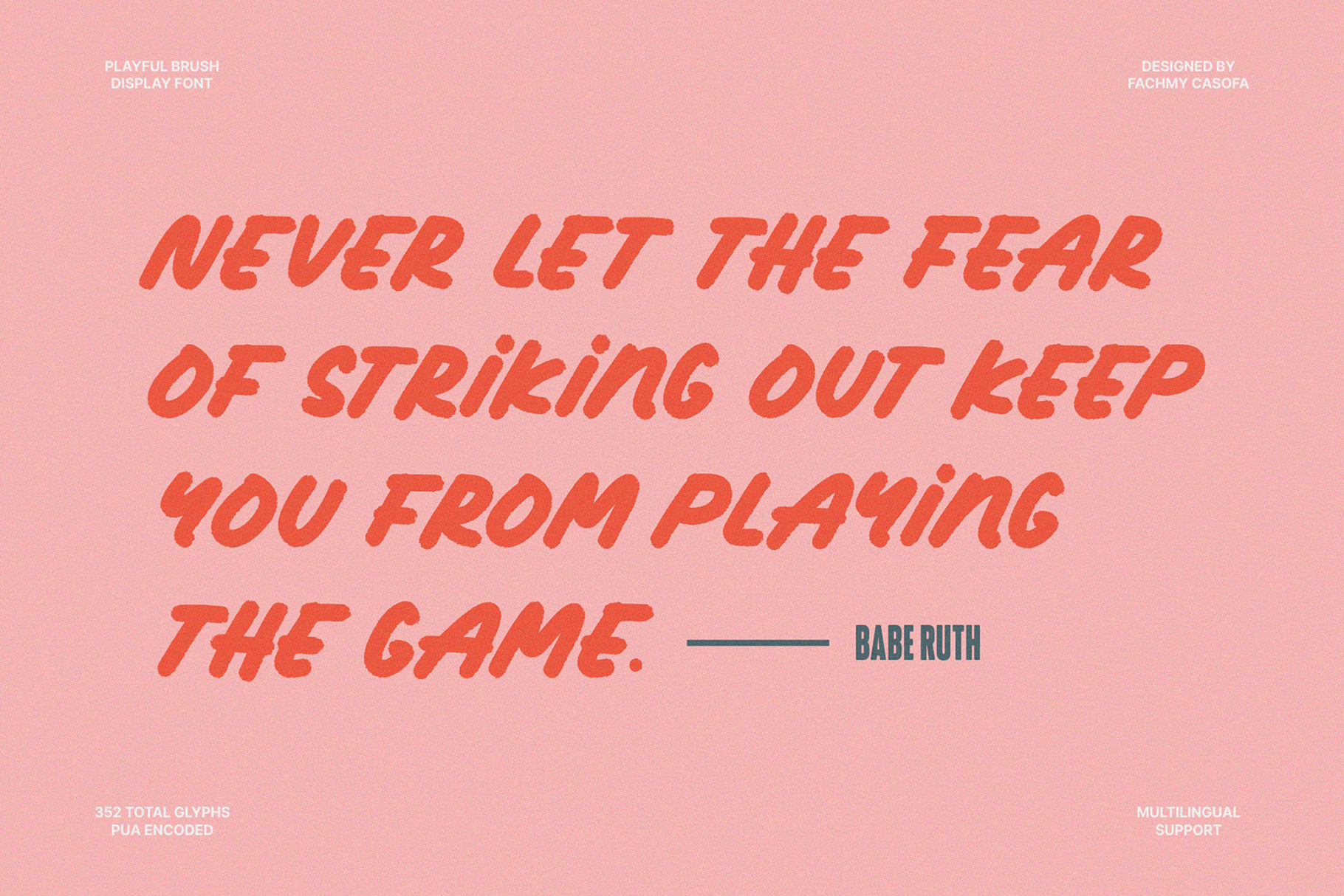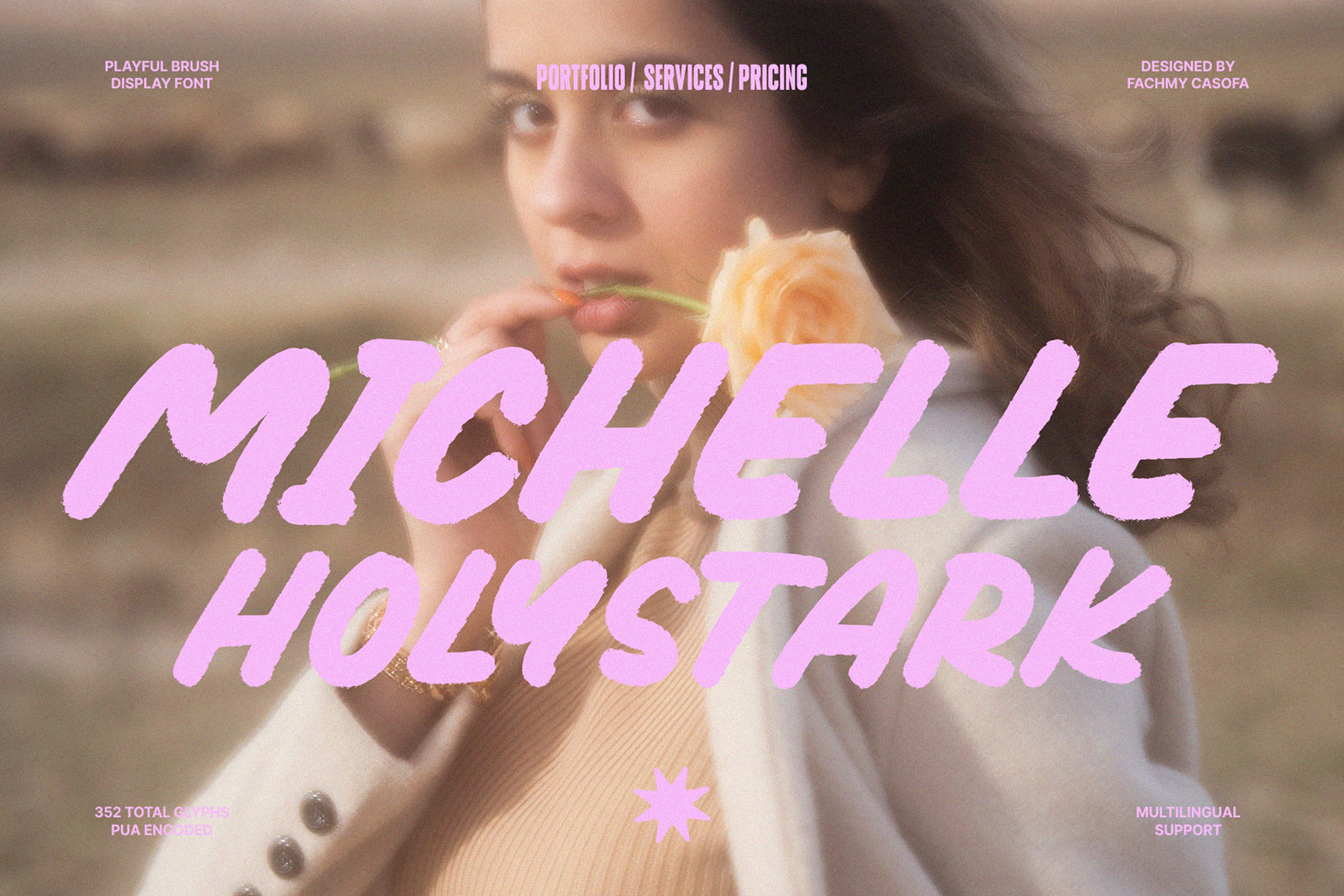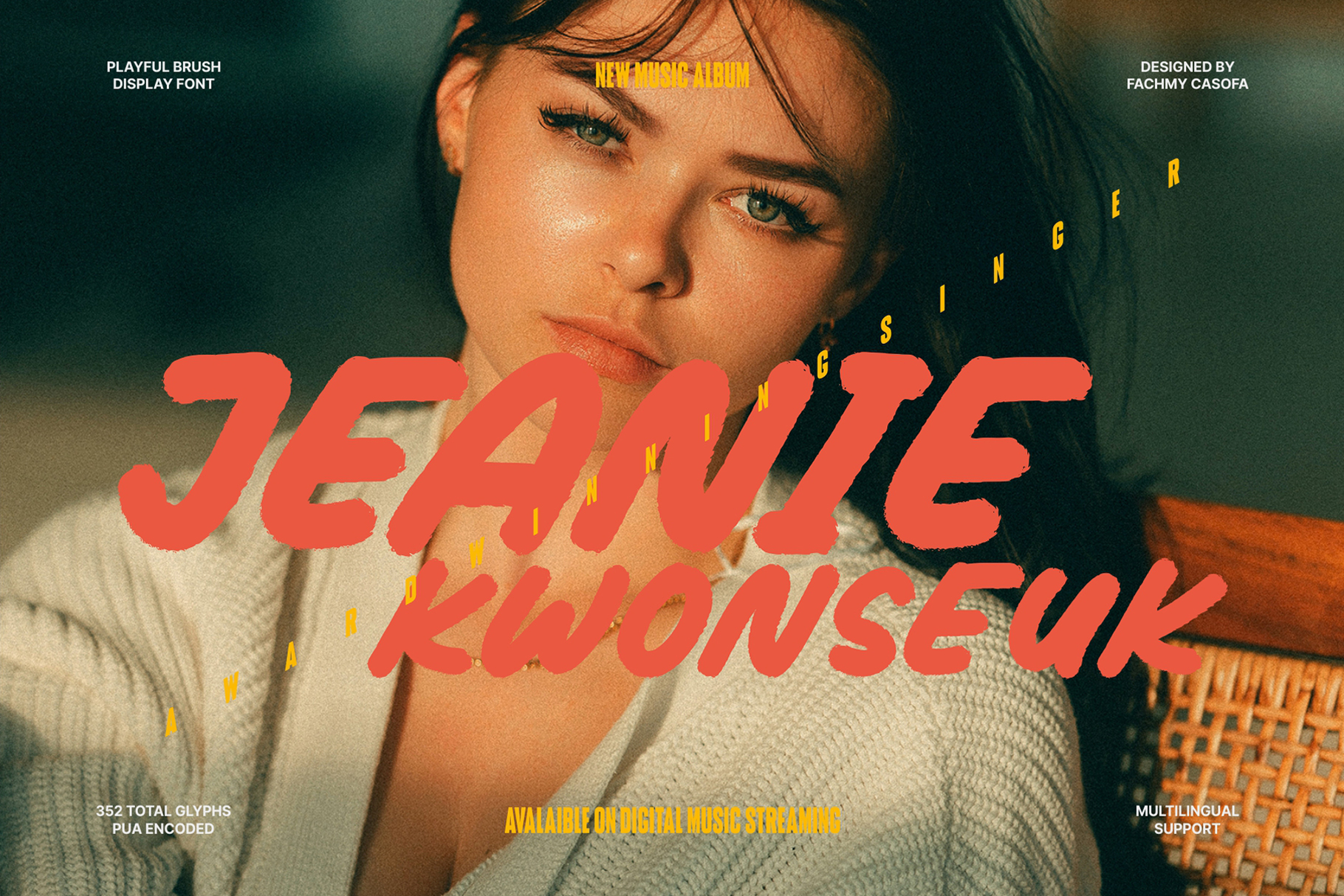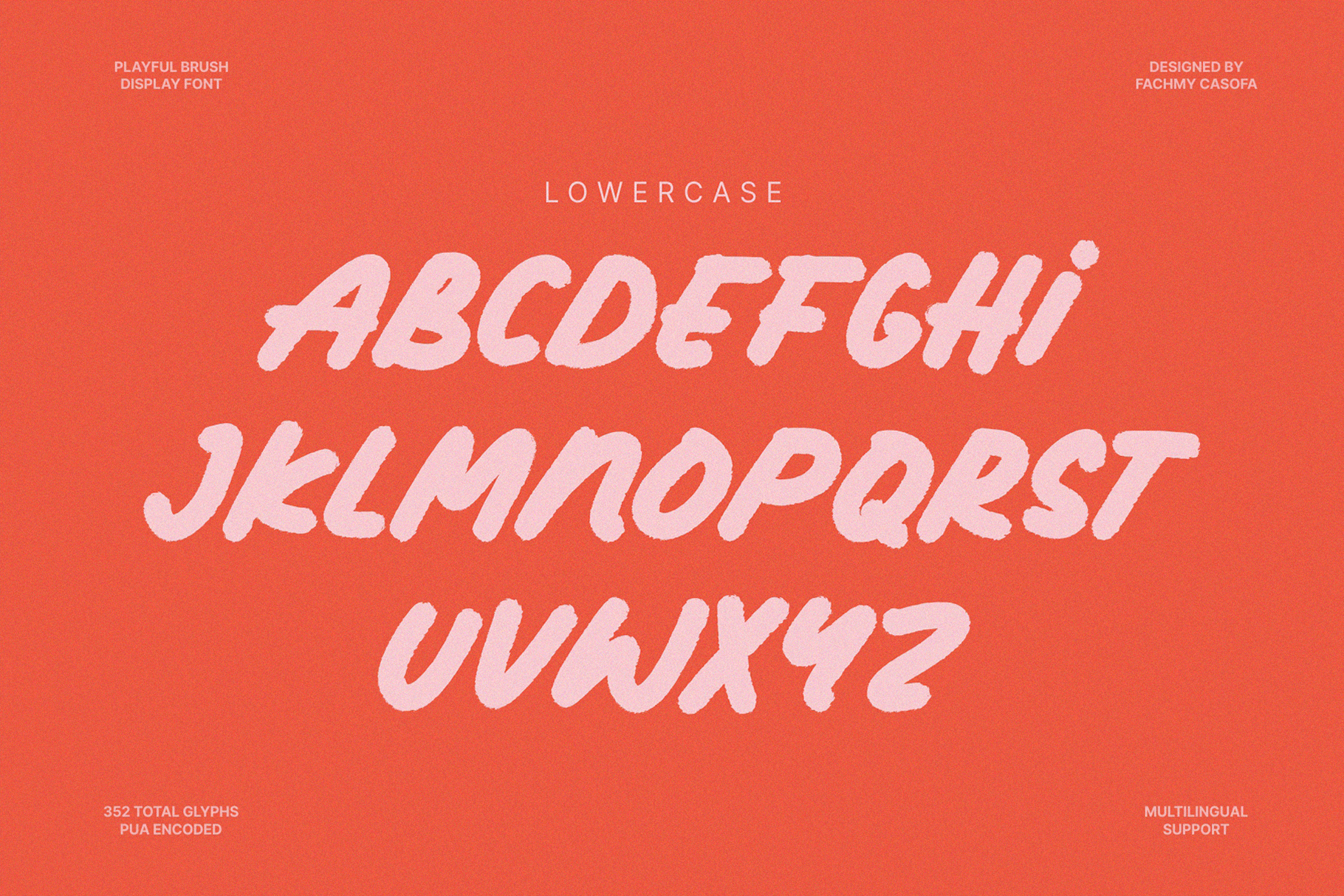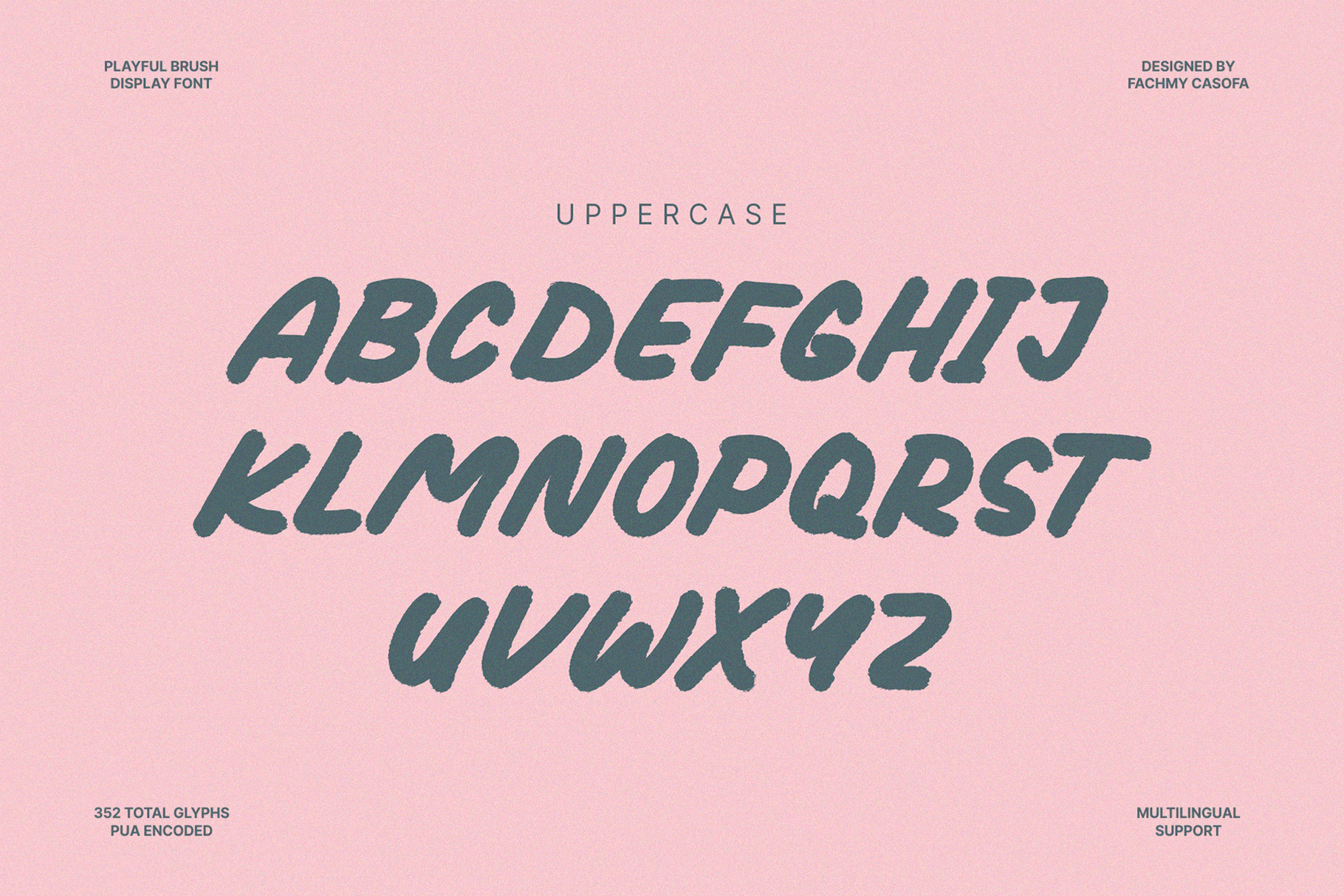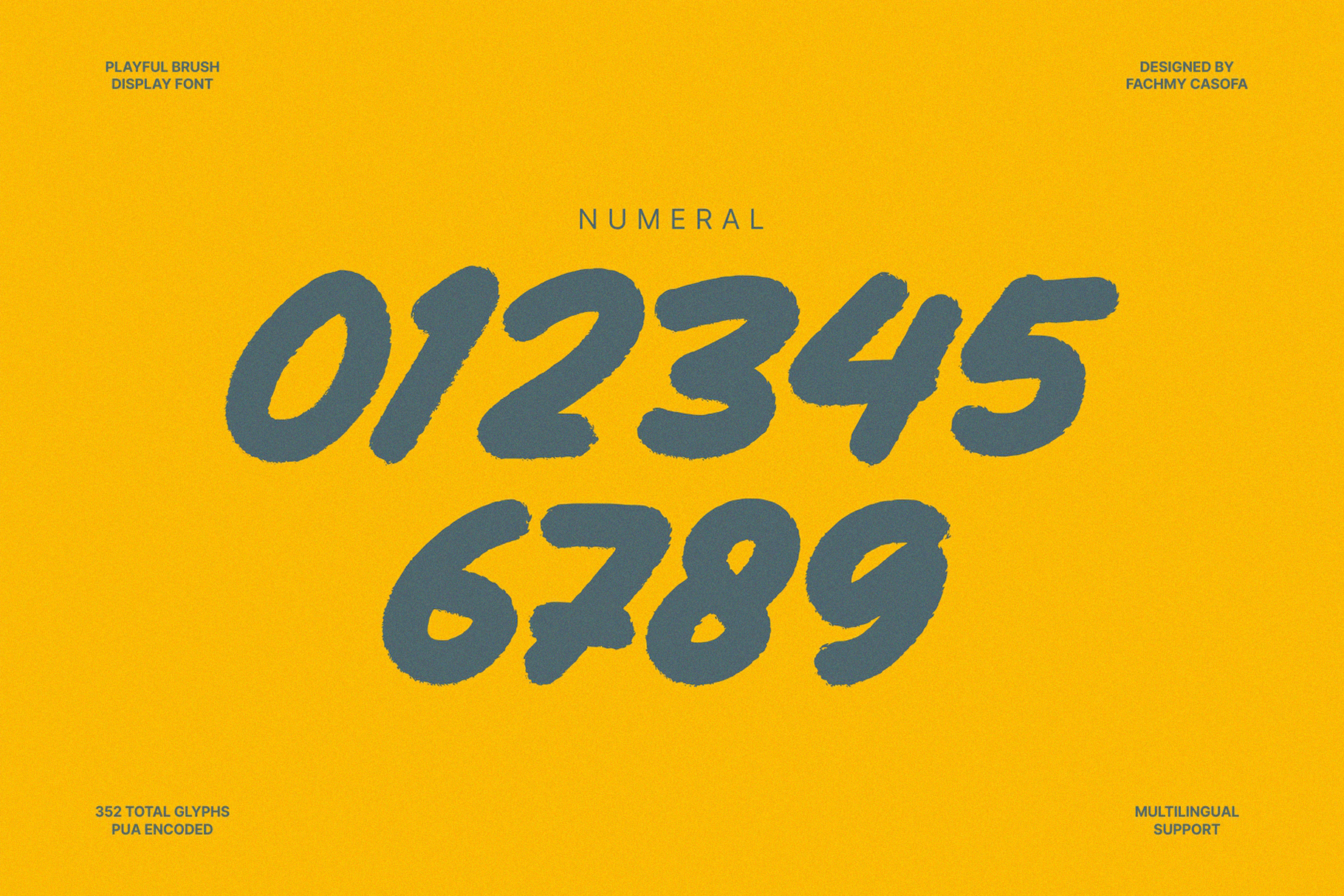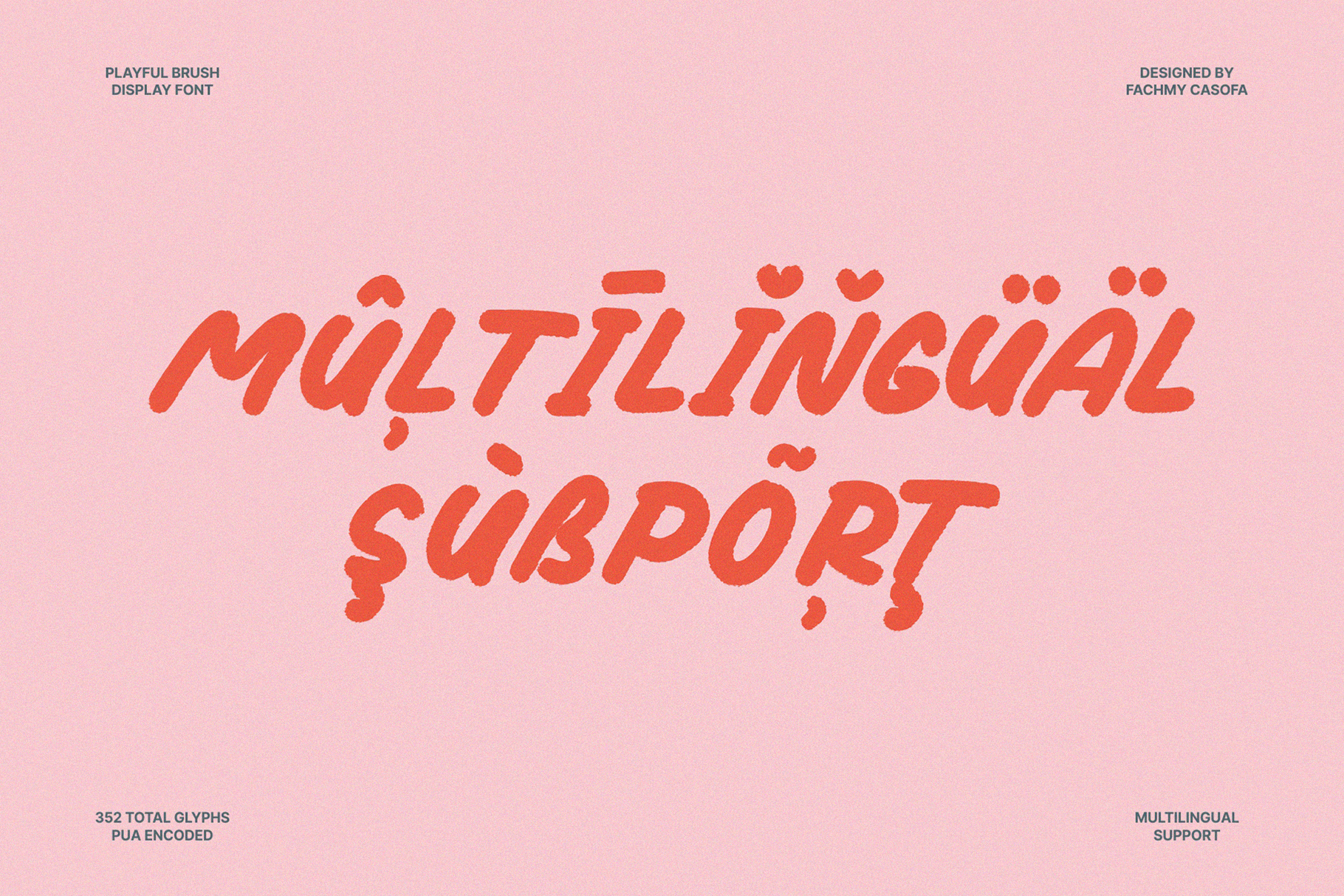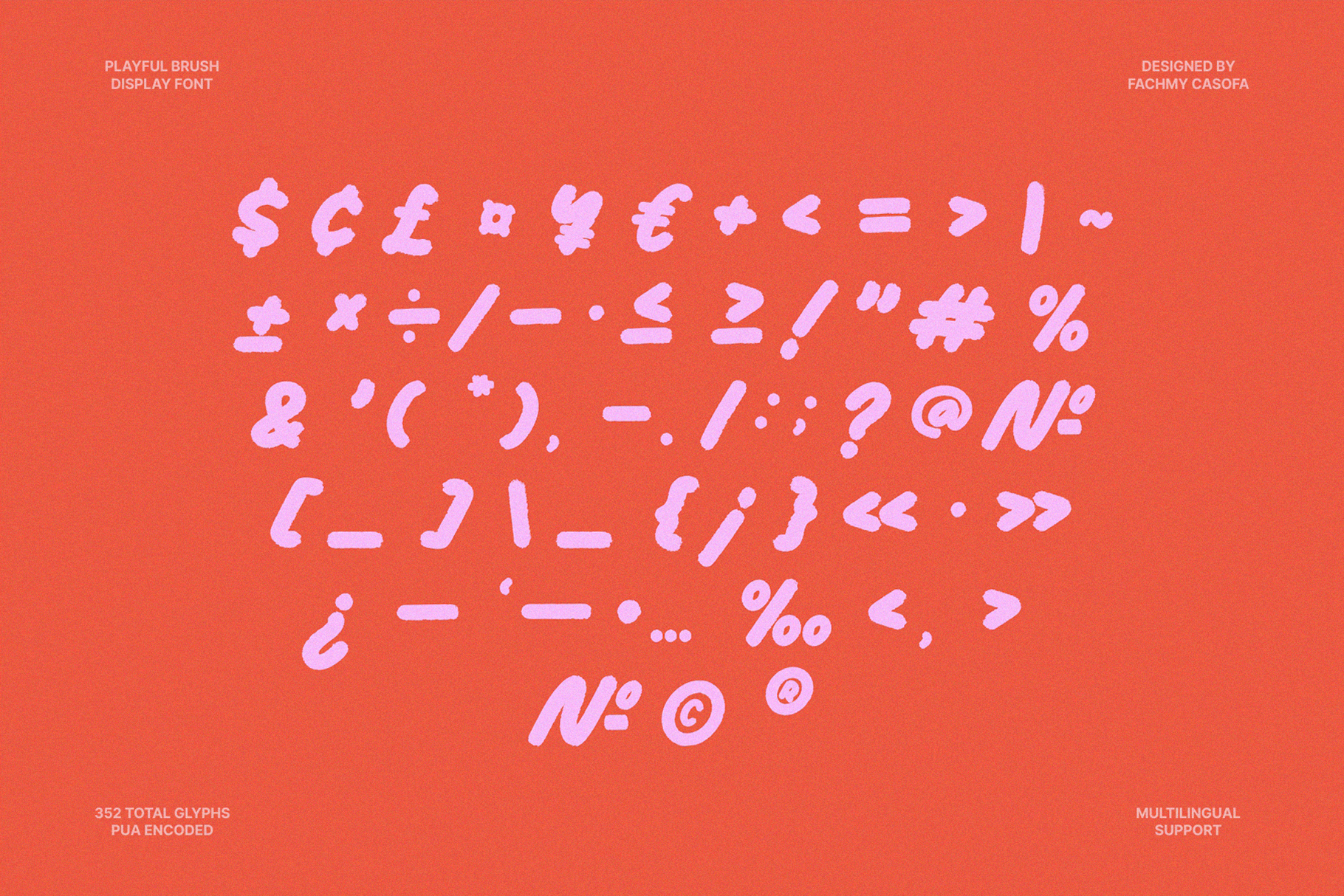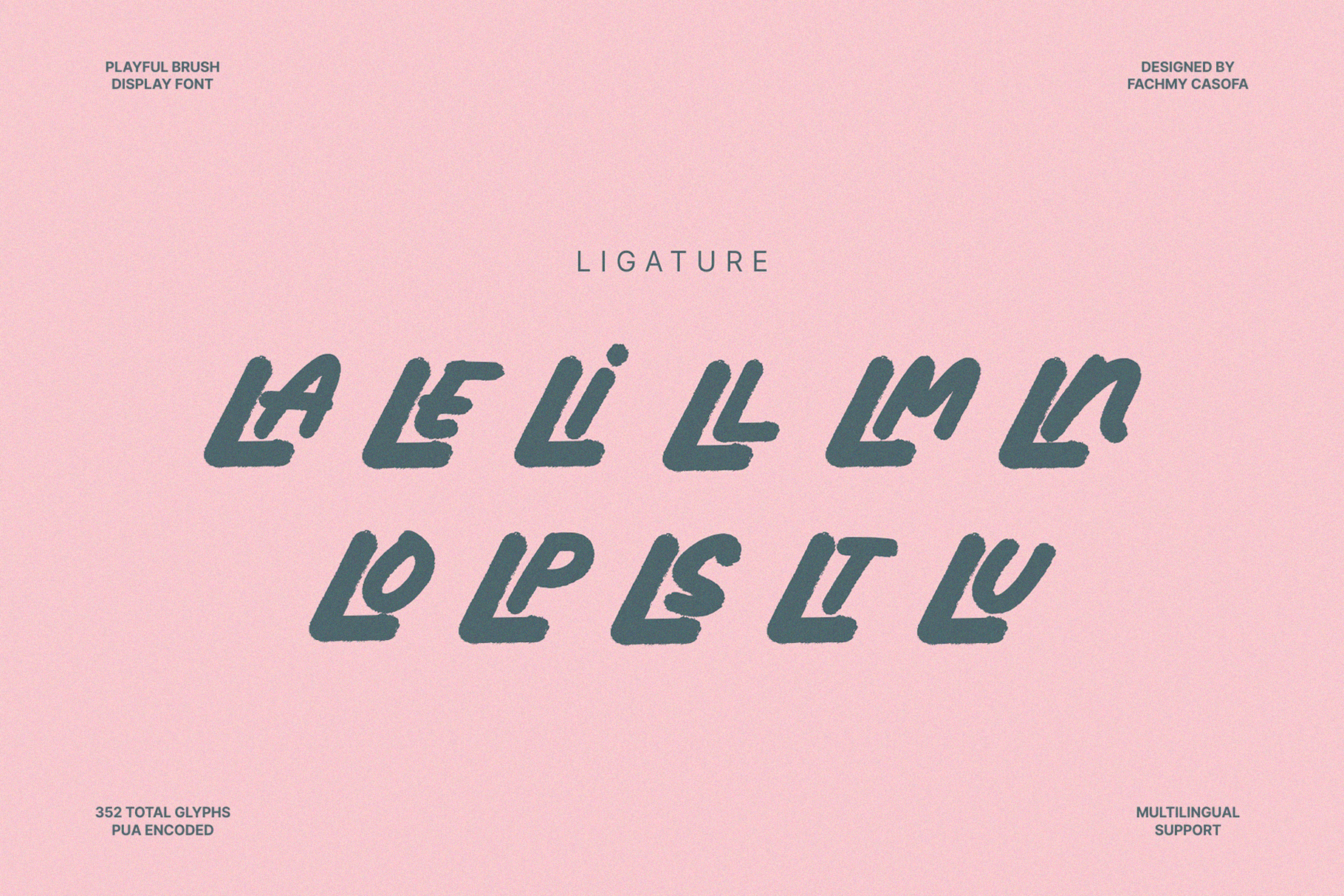
NCL Amore Benkova – Bold Brush Font
NCL AMORE BENKOVA is a bold playful brush display font. Masterfully designed to become a true favorite, this font has the potential to bring each of your creative ideas to the highest level! It was purposely crafted to be used in large point sizes, although it doesn’t lose its magic in small point sizes. It is perfect for headline, billboard, magazines, website, titles, poster, branding, and logos. No matter the topic, this font will be an incredible asset to your fonts’ library, as it has the potential to elevate any creation. With this beautiful font, absolutely you can make your project stand out from the rest.
• Contains 352 Glyphs
• Uppercase & Lowercase
• Numeral, Punctuation & Symbols
• Ligature
• Multilingual Support